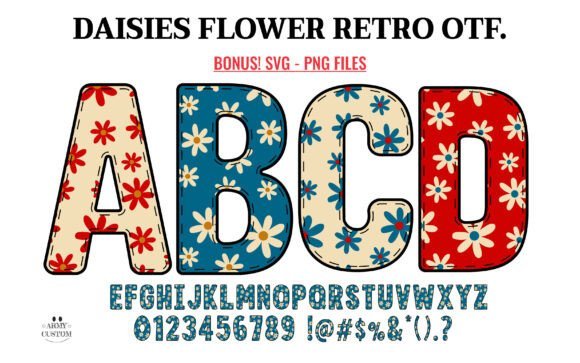
A Whimsical Touch to Your Creations
Who hasn’t felt the rush of inspiration when strolling through a lush meadow, surrounded by vibrant wildflowers? The gentle sway of petals and the soft colors of nature can evoke a sense of serenity and creativity. As designers, we often seek ways to infuse our work with this same sense of wonder and charm. That’s where the Daisy Flower Retro Bundle Font comes in – a delightful, hand-drawn font that captures the essence of daisies in every letter.
This enchanting font is perfect for sentimental expressions and endearing messages, adding a touch of nature’s elegance to your voice. With its charming simplicity, the Daisy Flower Retro Bundle Font is a valuable asset for designers looking to add a whimsical touch to their projects. Whether you’re a seasoned pro or just starting out, this font is sure to bring a smile to your face and a dash of personality to your designs.
- Unique Characteristics: A charming, hand-drawn design with floral elements, perfect for creating a vintage or retro aesthetic in various designs, such as invitations, posters, and branding materials
Daisy Flower Retro Bundle Font Review
I recently had the chance to work with the “Daisy Flower Retro Bundle Font” and I must say it’s a lovely addition to any design project. ✨ Here are some of the things that work well:
- The font’s nostalgic charm is undeniable, making it perfect for vintage-inspired designs.
- The font family includes a range of styles and weights, allowing for a lot of flexibility in terms of typography.
- The font is well-suited for both digital and print projects, making it a great all-around choice.
However, there are a few limitations to keep in mind: ⚠️
- The font may not be the best choice for projects that require a modern or minimalist aesthetic.
- The font’s retro vibe can be a bit overpowering, so it’s best to use it in moderation.
- The font family could benefit from a few more unique styles and weights to really make it stand out.
Overall, I think the “Daisy Flower Retro Bundle Font” is a solid choice for designers who want to add a touch of nostalgia to their projects. While it may not be the best fit for every design, it’s definitely worth considering for the right project.
Here are a few tips to get the most out of the Daisy Flower Retro Bundle Font:
- Use the font in conjunction with other retro-themed elements to create a cohesive look.
- Experiment with different font sizes and styles to add visual interest to your design.
- Combine the font with bold colors to create a striking contrast.
The Daisy Flower Retro Bundle Font is perfect for:
- Creating vintage-inspired designs.
- Adding a touch of nostalgia to your branding.
- Designing retro-themed products such as posters, flyers, and stickers